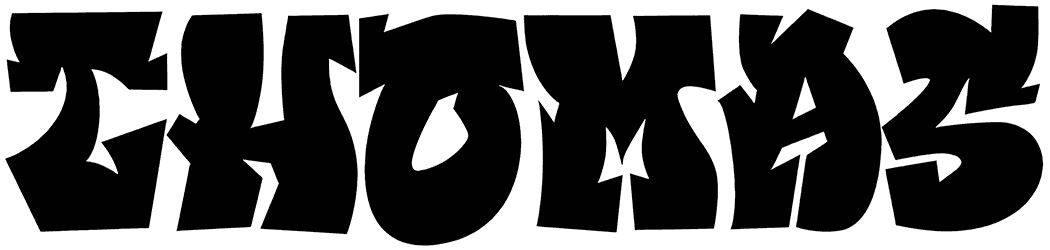
Thomas Font
When you put the humorous letters of Thomas on your design, don’t expect it to sound anything but fun and mischievous. These bold, fun letters have a kind of deformed style that’ll keep things interesting while you talk about your topic.
Because of this wild look, this graffiti font is designed as capitals for the sake of readability. That ensures you have the perfect all-caps font to create the coolest party posters, music covers, T-shirts, and more stuff like that.